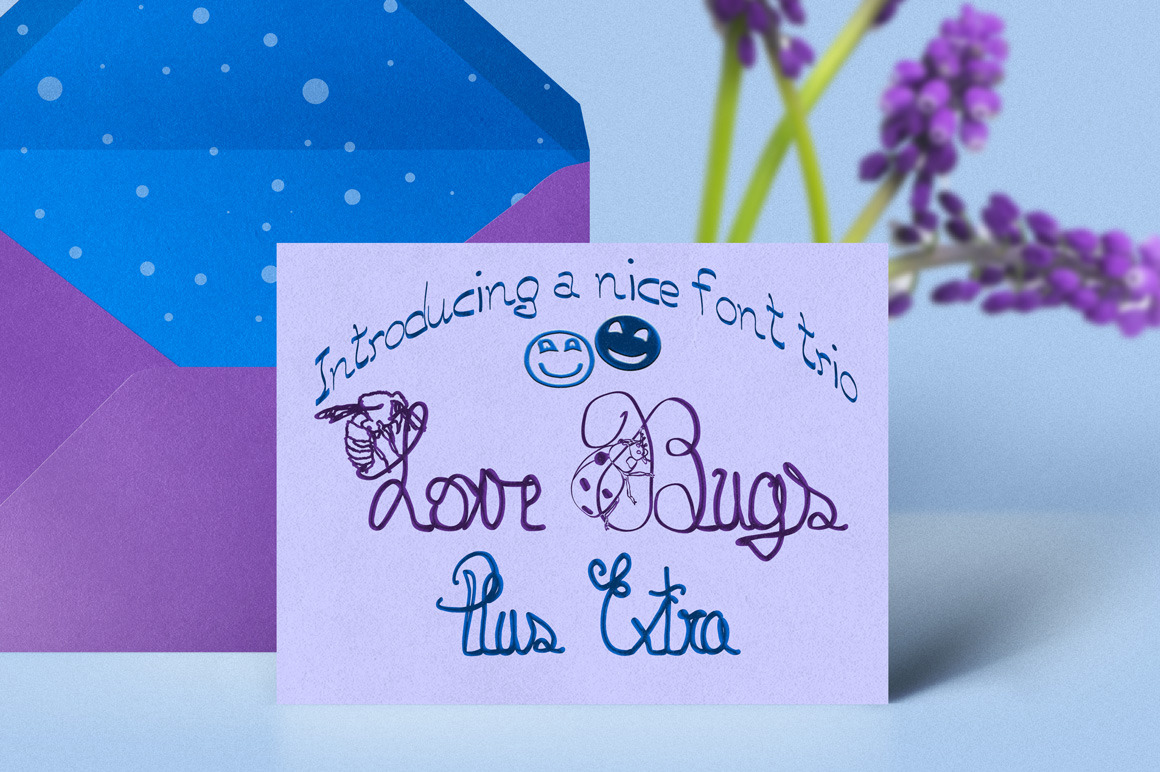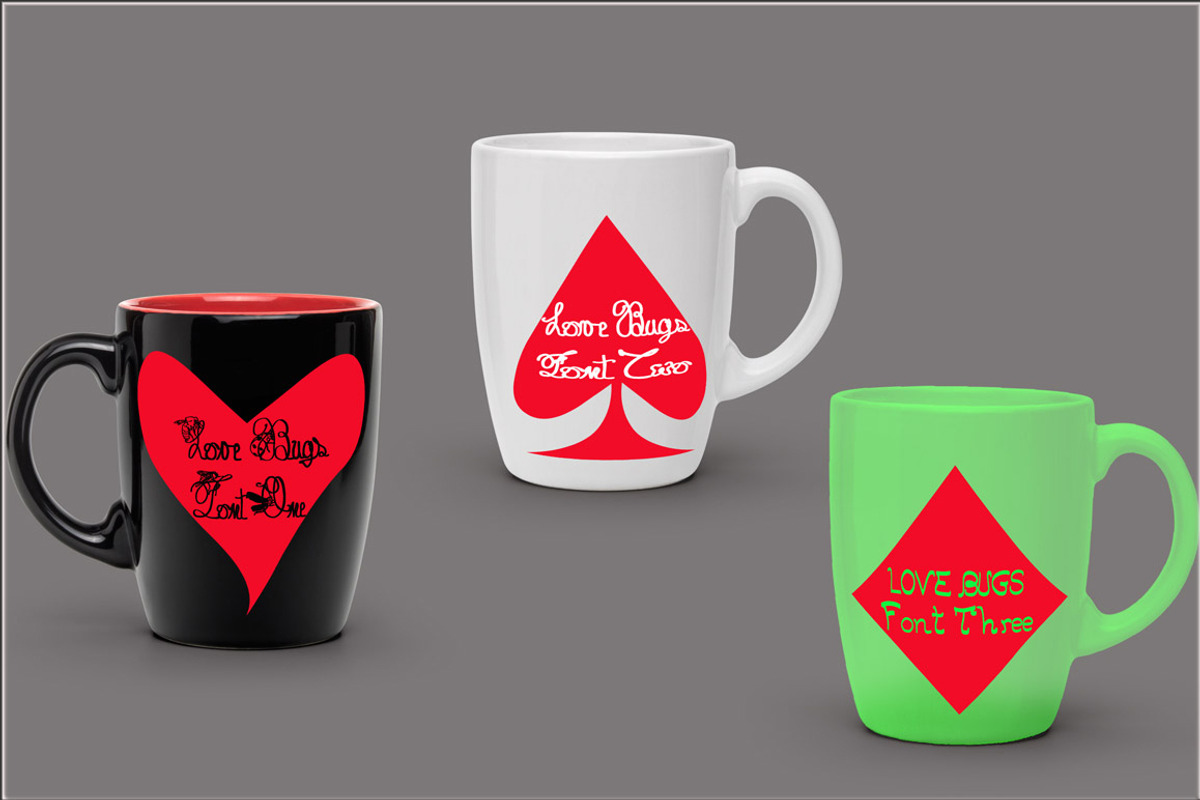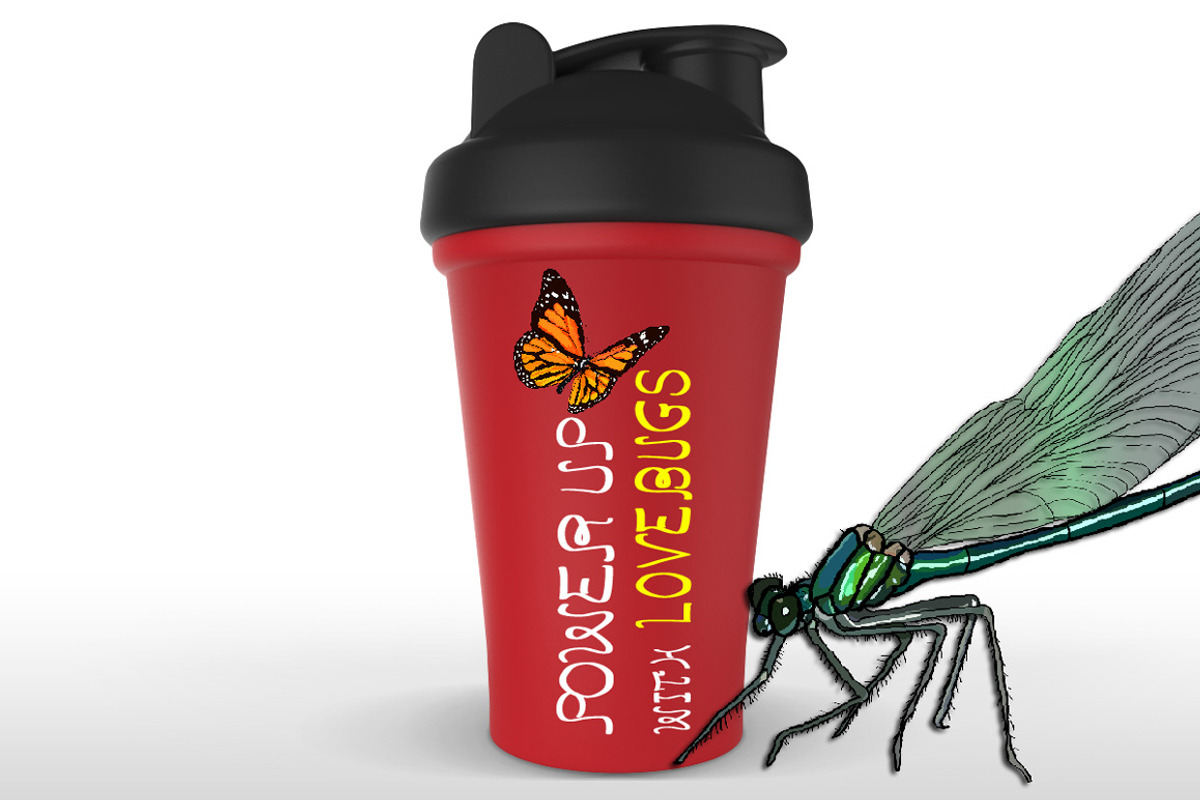
Love Bugs Font Trio
This is a nice font trio inspired by love for nature. Suitable for wedding invitations, greeting cards, logo, gadgets, covers, books, product packaging, postcards and whatever your imagination holds.
Included 10 colored vector bugs and 27 decorative characters.